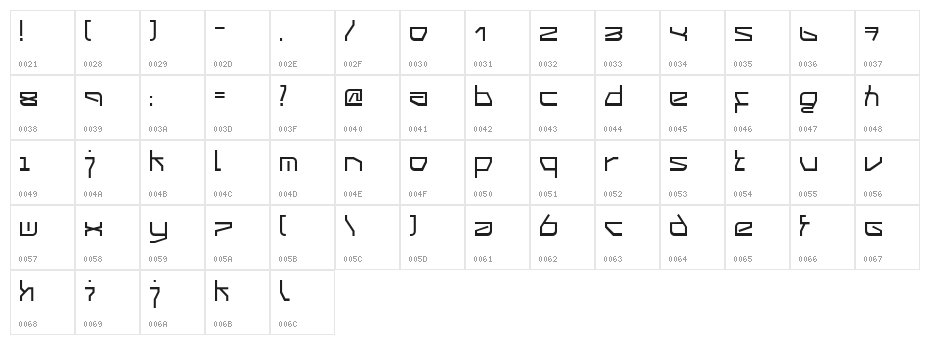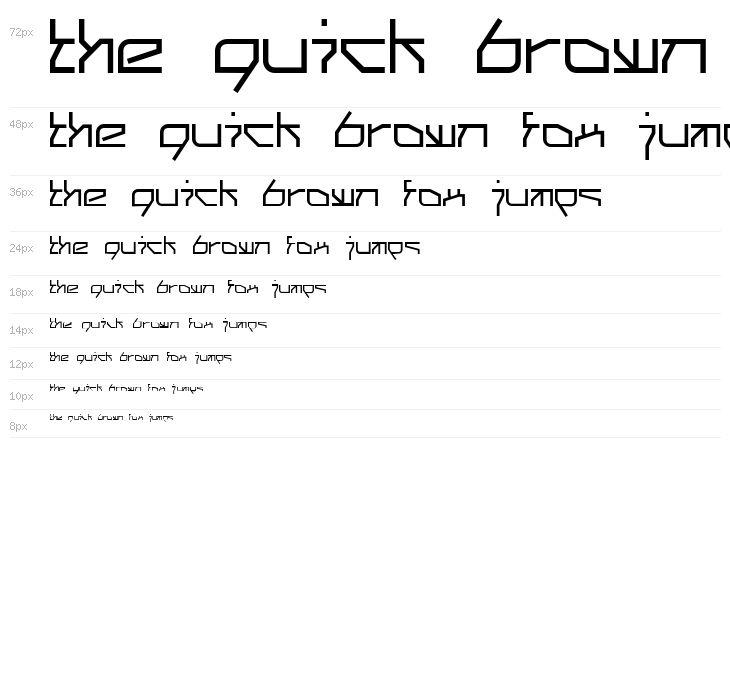
This font features a futuristic and geometric design, characterized by angular lines and sharp edges. Each character is constructed with a consistent stroke width, giving it a uniform appearance. The letters have a distinct mechanical feel, with some characters incorporating unique cuts and angles that add to its modern aesthetic. The numbers and special characters follow the same design principles, ensuring a cohesive look across all elements. This font is ideal for projects that require a modern, tech-inspired look.
| Proposed Projects | Ideal for technology branding, sci-fi themed designs, video game interfaces, and modern posters. |